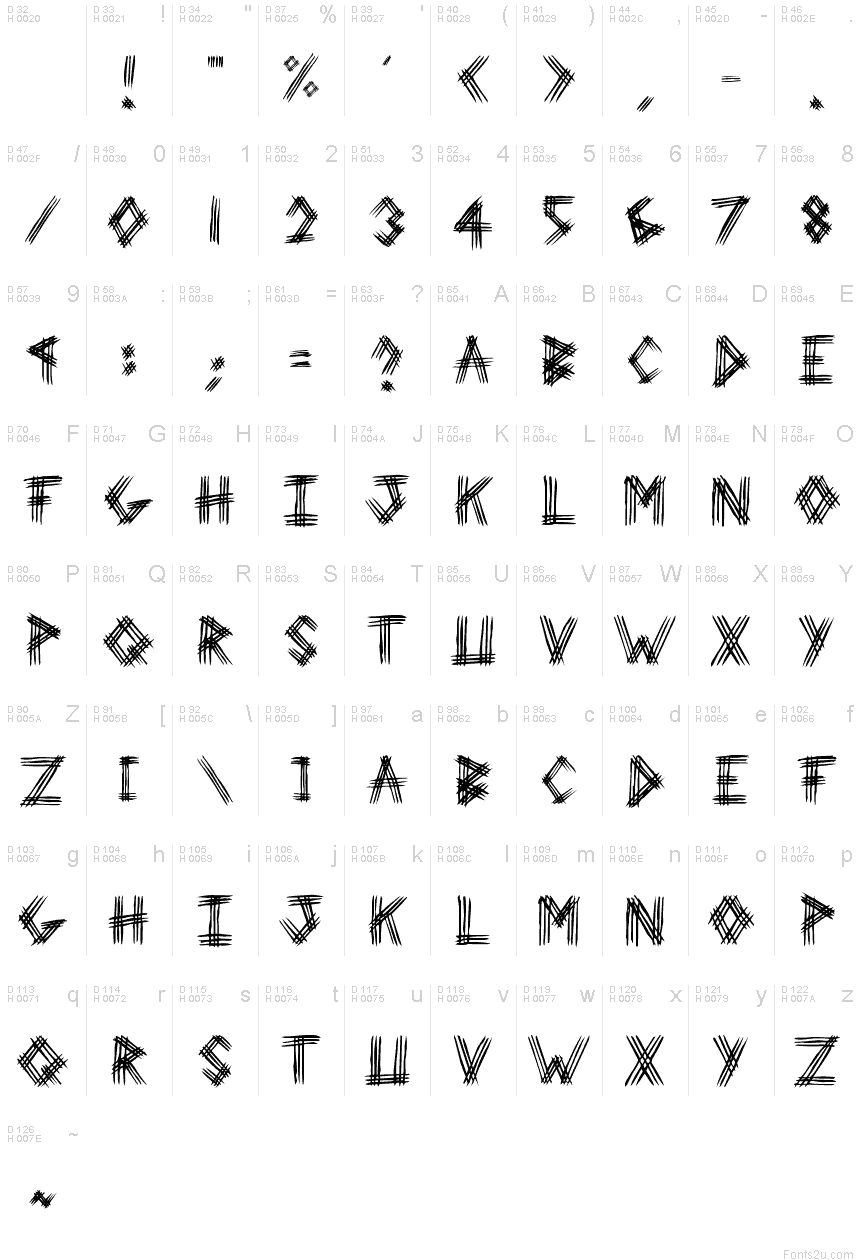
3 Prong Tree
This version includes only capital letters, and some commonly used punctuation.
My Dad goes hunting a lot. When he was growing up, one of his favorite tree stands at our hunting camp, Spring Bayou, was in the 3 Prong Tree. He killed many deer out of there. Now, the tree has fallen down, but the area around it will forever be called the 3 Prong Tree.
When I was writing some letters, I thought that using three straight lines to create each letter would look neat. So I tried it. On the letters without many curves, it turned out great, but the more curves required, the worse it got. That is why there are only Capital letters
My Dad goes hunting a lot. When he was growing up, one of his favorite tree stands at our hunting camp, Spring Bayou, was in the 3 Prong Tree. He killed many deer out of there. Now, the tree has fallen down, but the area around it will forever be called the 3 Prong Tree.
When I was writing some letters, I thought that using three straight lines to create each letter would look neat. So I tried it. On the letters without many curves, it turned out great, but the more curves required, the worse it got. That is why there are only Capital letters